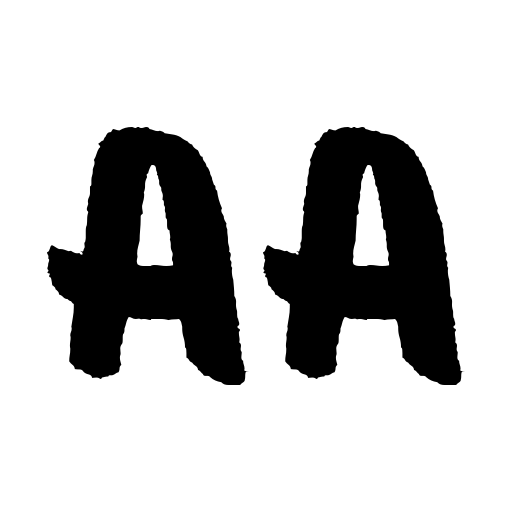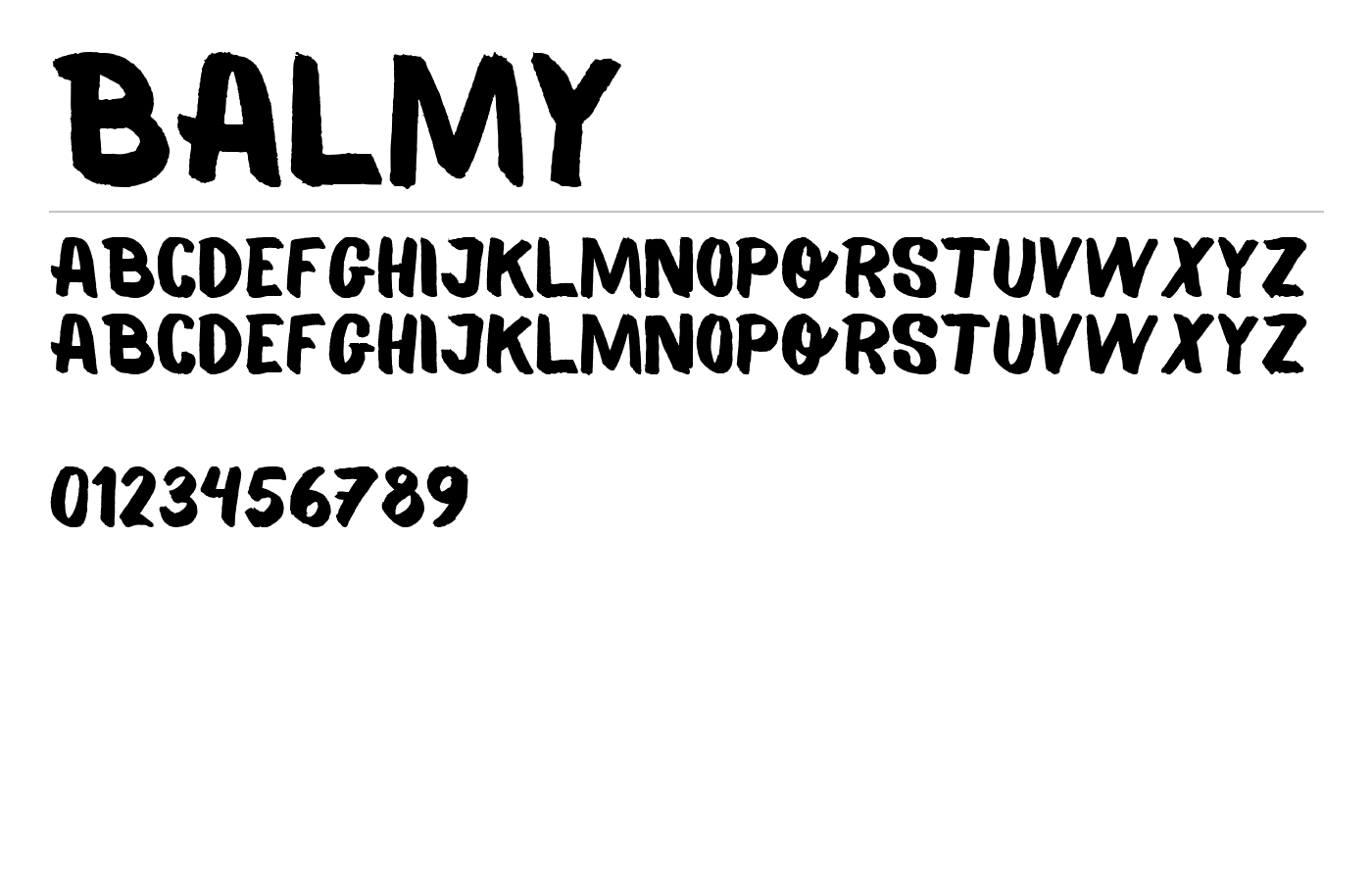
Balmy is a bold, playful sans serif font with a hand-drawn, brushstroke texture that gives it a lively and informal feel. Its irregular shapes and thick strokes create an approachable, friendly style ideal for creative projects, children's designs, or casual branding that wants to convey energy and personality. This font works well in headlines, posters, and packaging where a fun and eye-catching look is needed.
Balmy Font
About Balmy Font
| Font family | Balmy Font |
| Designer | Boris Garic BG11 Design |